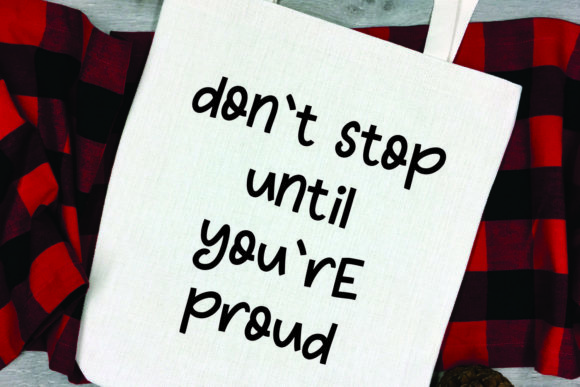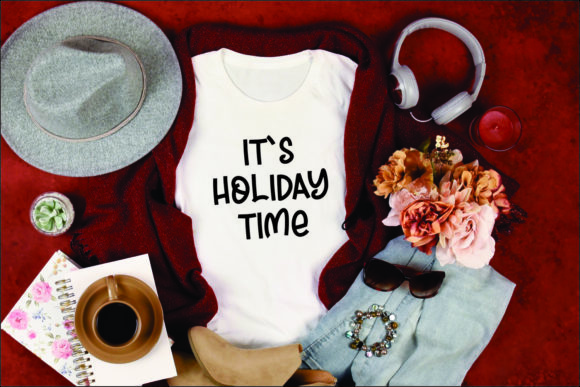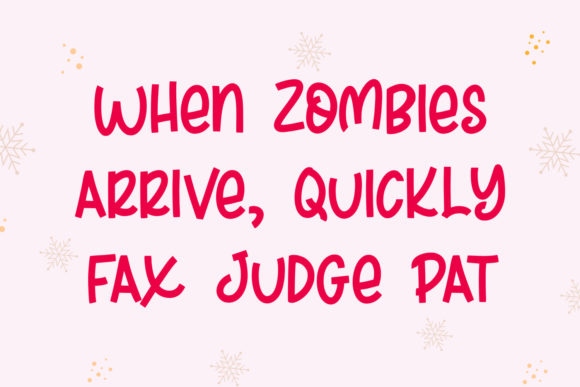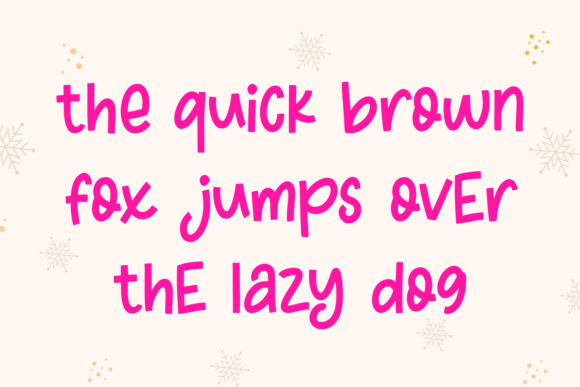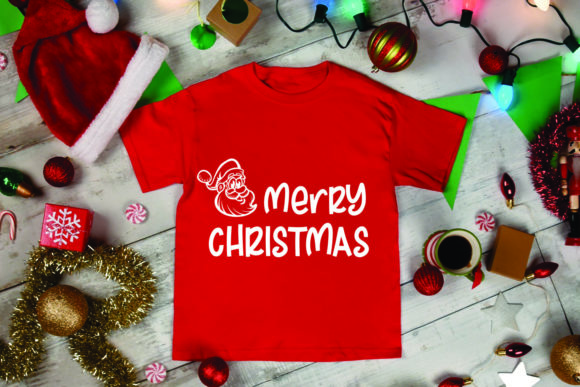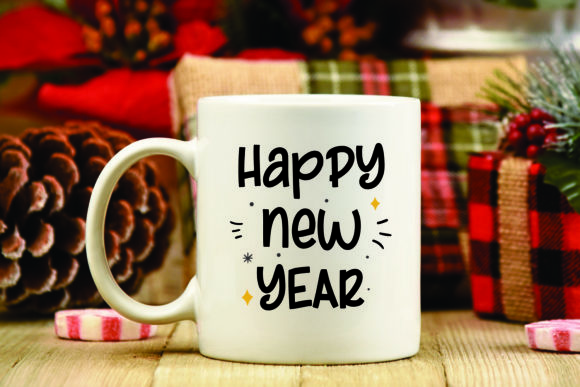
Introducing Christmas Farmhouse Font: The Perfect Addition to Your Design Collection
Are you looking for a font that captures the essence of the holiday season with a touch of rustic charm? Look no further than the Christmas Farmhouse Font! This adorable display font is designed to bring a playful and festive vibe to your designs, making it perfect for a wide range of projects. In this article, we’ll dive into the features and benefits of the Christmas Farmhouse Font and explore how you can use it to elevate your crafting, branding, and design endeavors.
A Cute and Playful Display Font
The Christmas Farmhouse Font is a carefully crafted display font that exudes a sense of whimsy and fun. Its unique character set and playful style make it an excellent choice for adding a personal touch to your designs. Whether you’re working on a holiday-themed project or simply want to add a dash of festive flair to your creations, this font is sure to delight.
Ideal for a Wide Range of Projects
One of the standout features of the Christmas Farmhouse Font is its versatility. This font is perfect for a variety of applications, including:
- Crafting: Use the Christmas Farmhouse Font to add a personal touch to your crafting projects, such as handmade cards, gift tags, and decorations.
- Branding: Create a cohesive brand identity with this font, ideal for logos, business cards, and packaging.
- Decorating: Add a festive touch to your home decor with this font, perfect for creating signs, banners, and other decorative elements.
- Farmhouse designs: Bring a touch of rustic charm to your farmhouse-inspired designs, such as signs, posters, and invitations.
- Shirts and apparel: Use the Christmas Farmhouse Font to create eye-catching designs for t-shirts, hoodies, and other apparel.
- SVG designs: This font is optimized for use with SVG files, making it perfect for cutting machines and other digital craft projects.
- Blogs and social media: Add a personal touch to your blog posts and social media graphics with this charming font.
- Logos and branding: Create a unique and memorable logo with the Christmas Farmhouse Font.
- Invitations and parties: Use this font to create festive and fun invitations for your next party or gathering.
Perfect for Creating a Logo or Beautiful Frame
The Christmas Farmhouse Font is also ideal for creating a logo or a beautiful frame for your home. Its unique character set and playful style make it perfect for adding a personal touch to your designs. Whether you’re looking to create a custom logo for your business or a beautiful frame for your home, this font is sure to impress.
Use for Any Crafting Project
One of the best things about the Christmas Farmhouse Font is its ability to add a personal touch to any crafting project. Whether you’re working on a handmade card, a gift tag, or a decorative element, this font is sure to make your project stand out. With the Christmas Farmhouse Font, you can:
- Create custom signs and banners for your home or business.
- Add a personal touch to your handmade cards and gift tags.
- Design eye-catching decorations for your home or office.
- Create unique and memorable gifts for friends and family.
Why Choose the Christmas Farmhouse Font?
So why choose the Christmas Farmhouse Font for your next project? Here are just a few reasons:
- Unique and playful style: This font is sure to add a touch of whimsy and fun to your designs.
- Versatile: Use the Christmas Farmhouse Font for a wide range of projects, from crafting and branding to decorating and more.
- Easy to use: This font is optimized for use with a variety of design software, making it easy to incorporate into your workflow.
- High-quality: The Christmas Farmhouse Font is a high-quality font that is designed to produce crisp and clear results.
| Author | Mozatype |